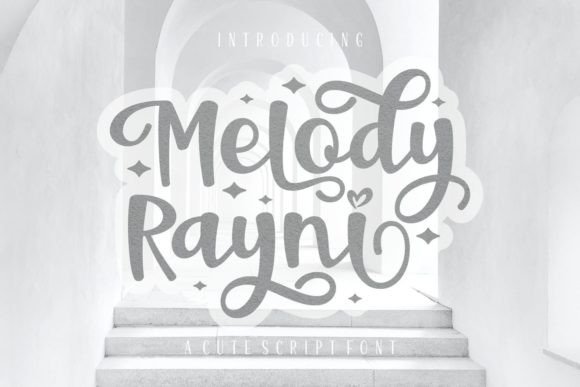
Attention all creatives, designers, and calligraphy enthusiasts! Introducing the Melody Rayni Font - the ultimate font for your design needs. This stunning font was created by Rifki of 7ntypes and is the perfect addition to any project that requires a touch of elegance and whimsy.
Whether you're creating wedding invitations, branding materials, or simply want to add a touch of sophistication to your artwork, the Melody Rayni Font is the perfect choice. Its delicate curves, flowing lines, and charming details will take your designs to the next level.
Not only is the Melody Rayni Font visually stunning, but it also boasts incredible functionality. It is PUA encoded, which means that you can access all of its amazing glyphs and ligatures with ease. This makes it the perfect font for calligraphy enthusiasts who want to take their designs to the next level.